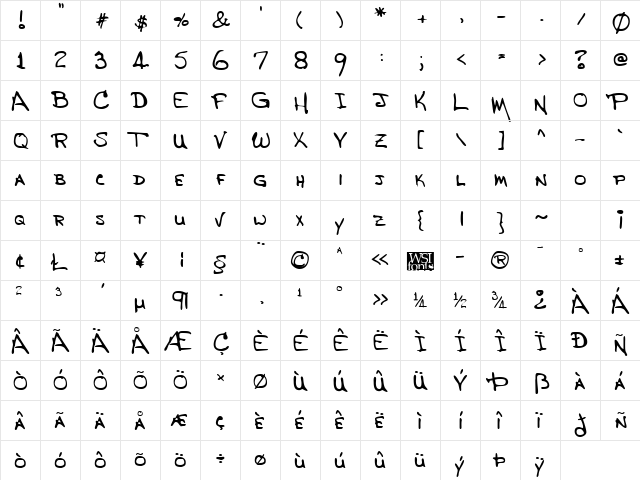
JasonsHand Regular
Design Context for JasonsHand Typeface
JasonsHand flows with the natural rhythm of handwritten lettering, making it ideal for designs that call for warmth and personal expression.
Font Pairing: Combine JasonsHand with a simple geometric sans for maximum contrast — the tension between flowing curves and clean structure is a classic typographic pairing.
Pro Tip: Use JasonsHand for short runs of text — names, titles, or taglines. Extended body copy in script faces tires the eye quickly.